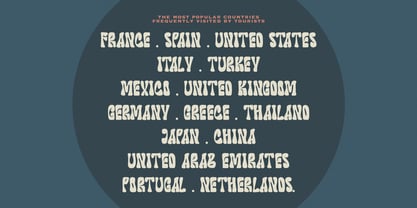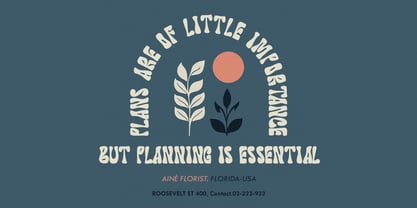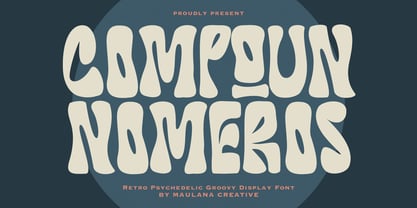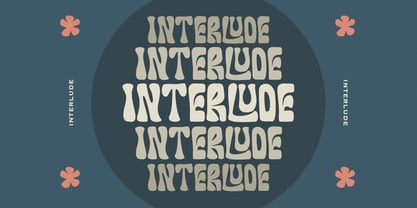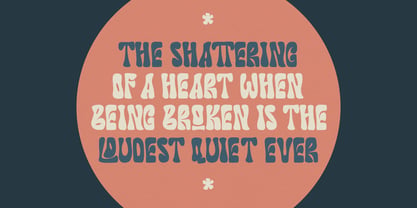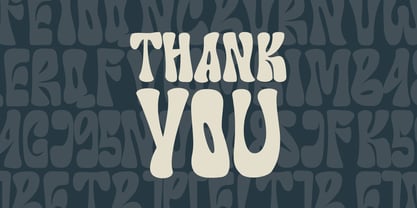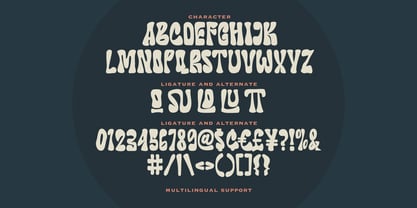
MC Compoun Nomeros
by Maulana Creative
The MC Compoun Nomeros Font Family was designed by Gilang Maulana and published by Maulana Creative. MC Compoun Nomeros contains 1 styles. More about this family
Compoun Nomeros is a high-energy display font that captures the essence of the psychedelic movement. Featuring liquid-like curves and bold, melting letterforms, this font is designed to make a statement. Whether you are creating a trippy concert media, a vintage inspired brand identity, or eye-catching design, Compoun Nomeros brings that authentic "groovy" vibe to your project. Equipped with unique ligatures and alternates, this font allows you to customize your typography for a truly organic, hand-drawn look. Its thick, wavy strokes provide excellent readability while maintaining a playful and artistic aesthetic.
Designers: Gilang Maulana
Foundry: Maulana Creative